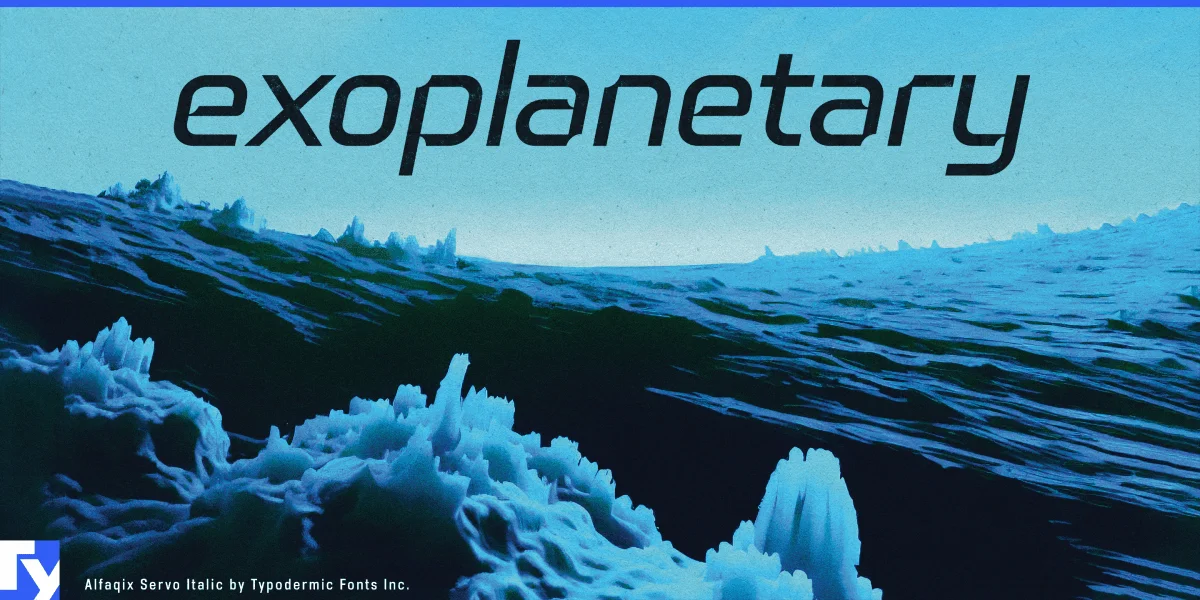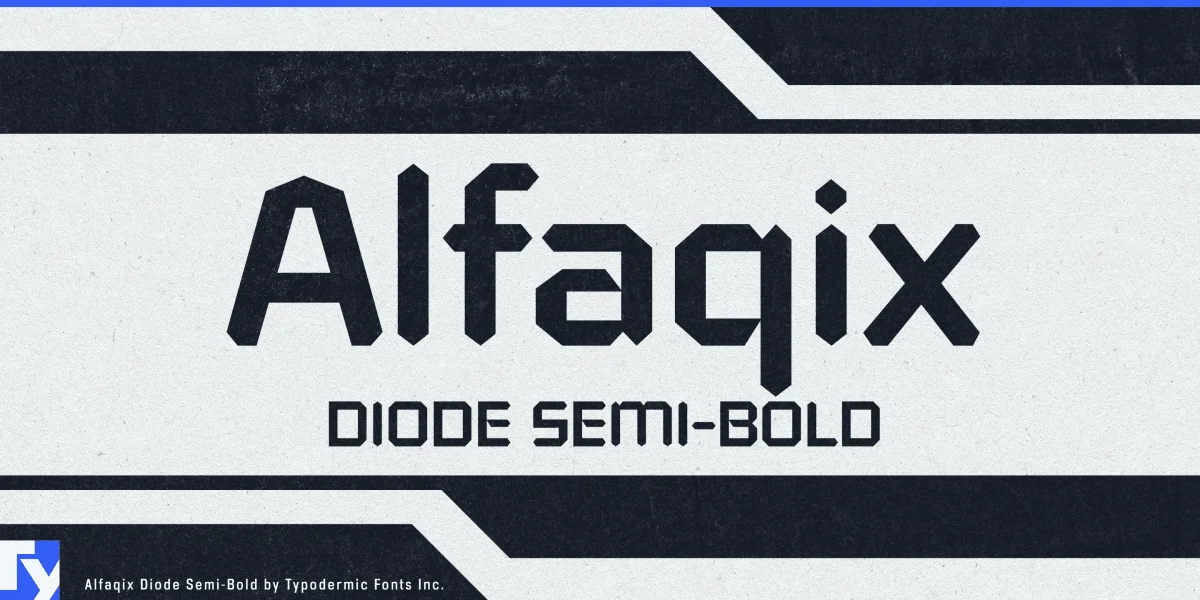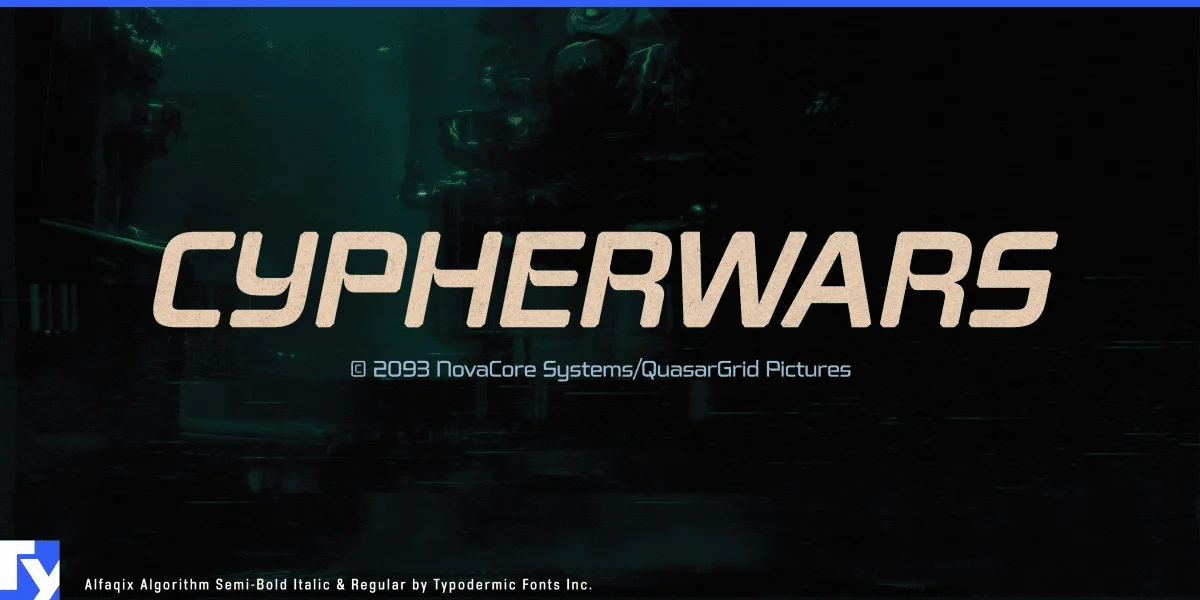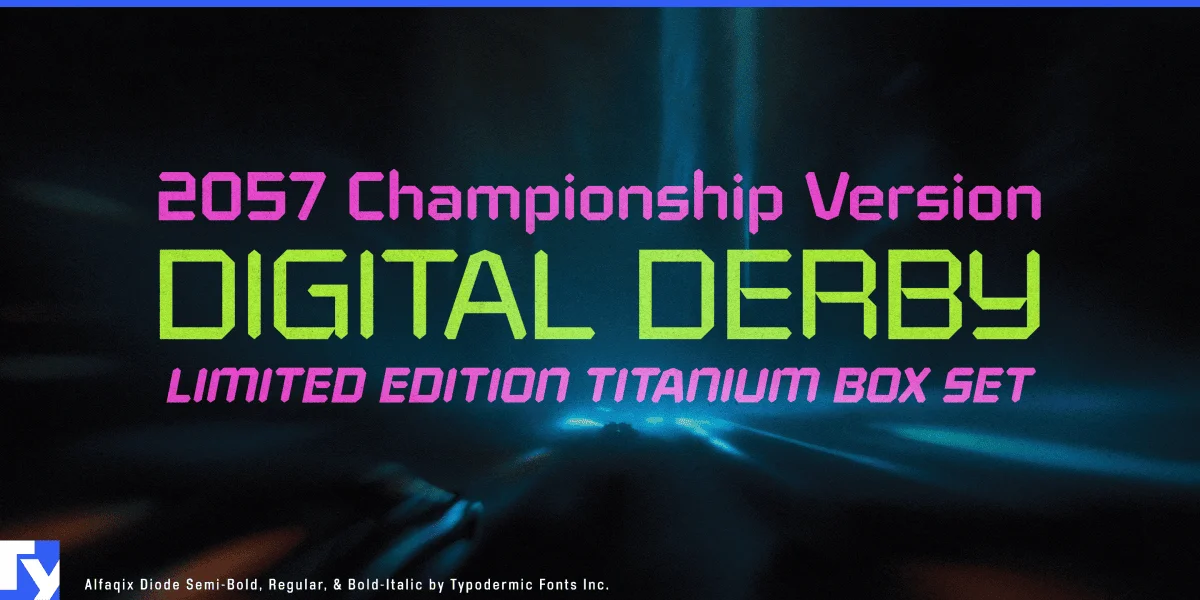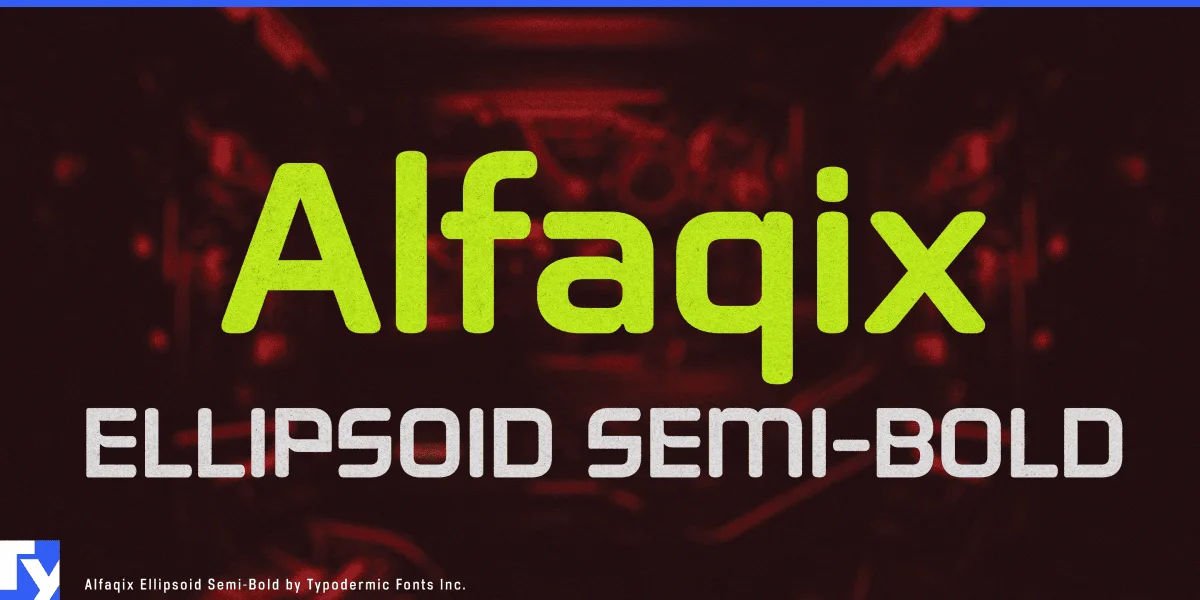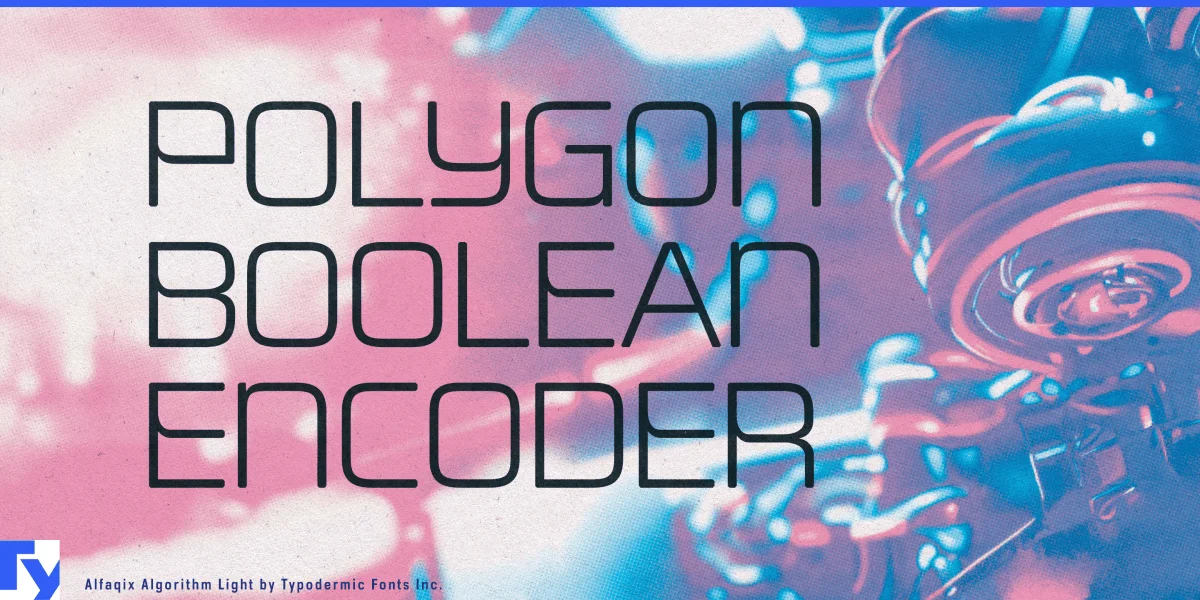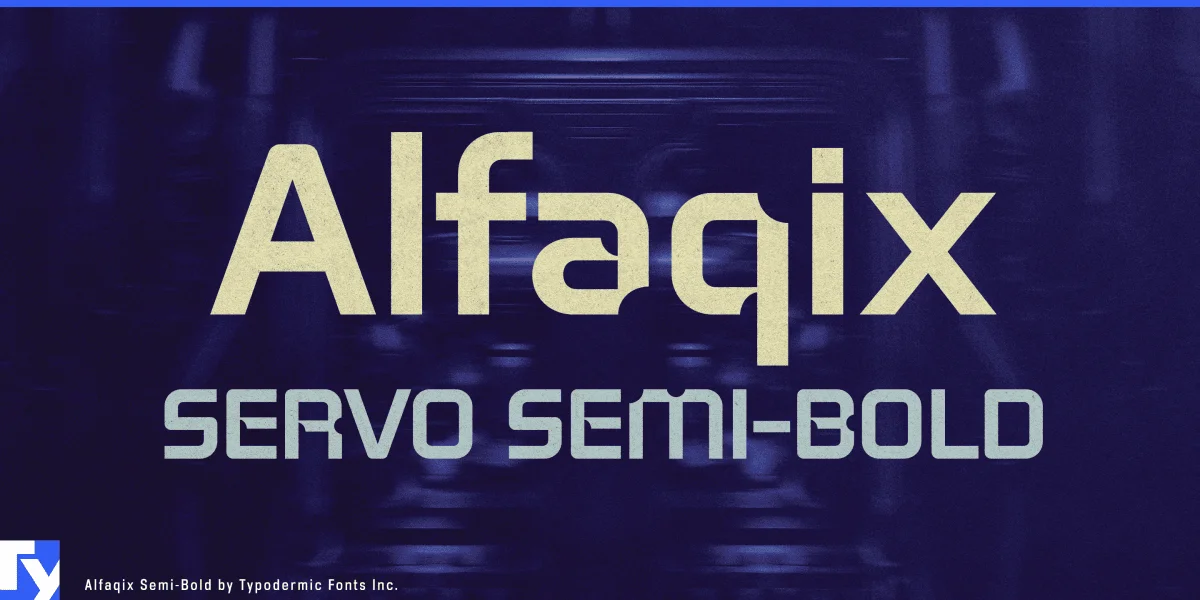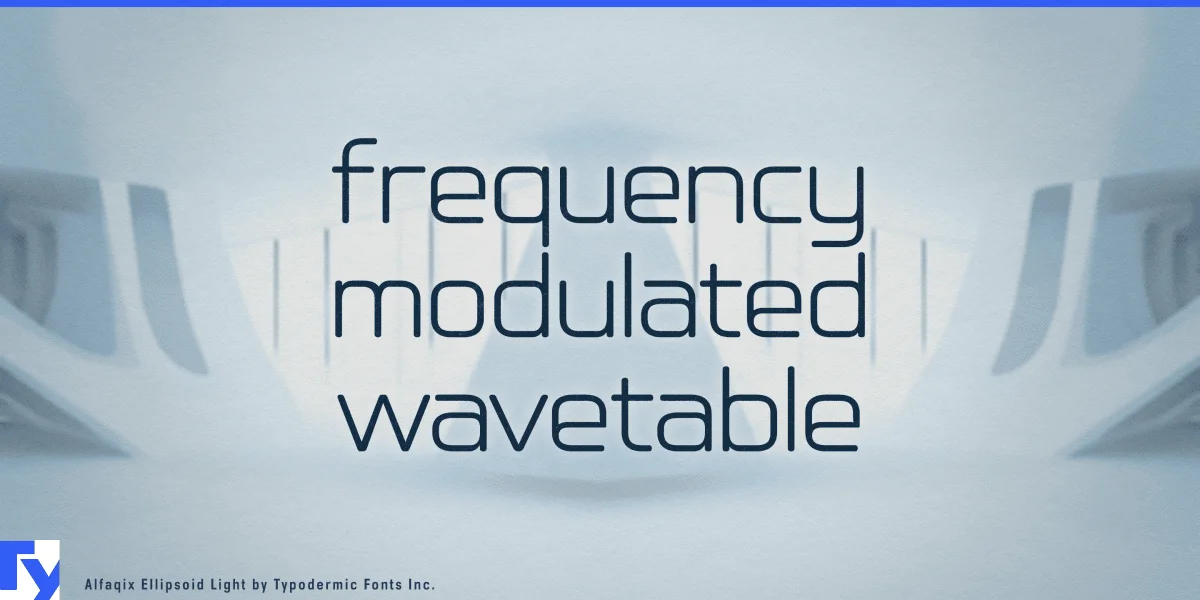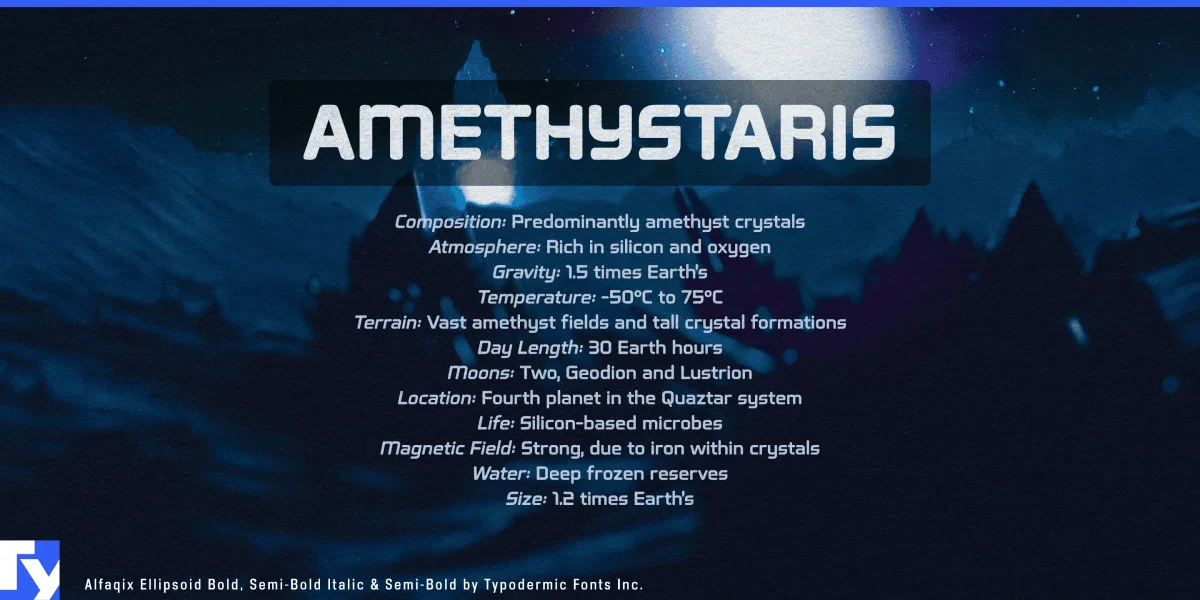
Alfaqix is a collection of modular, techno-inspired typefaces exploring different facets of futuristic geometry. Across the series, squared forms, sharp chamfers, rounded terminals, and distinctive mechanical notches create a family of designs that feel engineered, digital, and unmistakably modern. Drawing inspiration from data displays, LCD segments, servo mechanisms, and Y2K-era futurism, the Alfaqix families are well suited to interfaces, dashboards, tech branding, motion graphics, and editorial layouts that call for a clean high-tech voice. With broad support for Latin-based European languages, Alfaqix delivers precise, forward-looking typography for contemporary design.